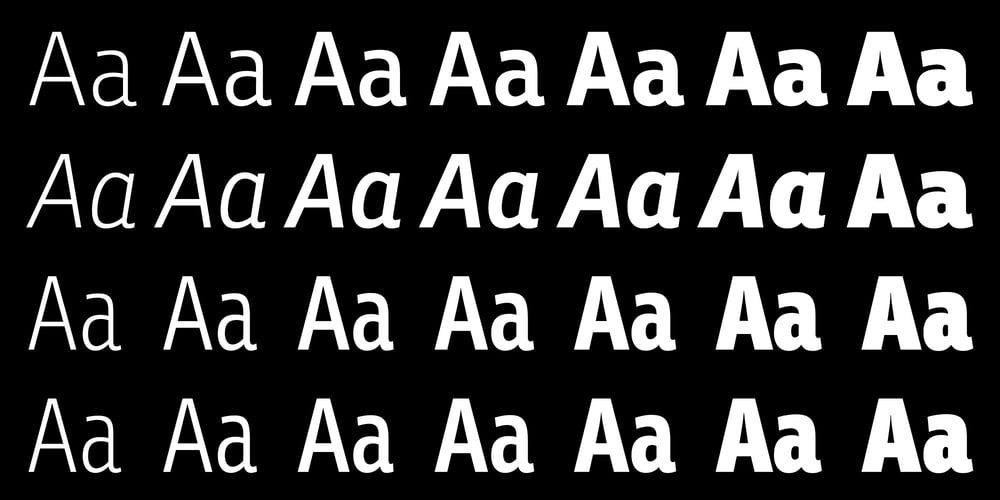
Ronnia Font Family was designed by Veronika Burian, José Scaglione and published by TypeTogether. Ronnia contains 14 styles and family package options. One of the most remarkable characteristic of this humanistic sans serif is its versatility. Ronnia’s personality performs admirably in headlines, but is diffident enough for continuous text and small text alike. The heavier weights deliver very cohesive shapes, and they have been successfully used for branding and newspaper headlines. Its ten styles grant the designer a broad range of coherent color and texture variations in text blocks, necessary tools to solve complex information and editorial design problems. Ronnia has been mainly engineered for newspaper and magazine applications manifested in its properties: economic in use, highly legible, and approaching the reader with some friendliness and charm. Ronnia features about 800 characters per weight, including small caps, fractions, old style and lining numbers, scientific superior/inferior figures, and a set of symbols and arrows. It supports over 40 languages that use the Latin extended alphabet. Ronnia Basic is a reduced version of Ronnia. It is still an OT-font but without any particular features except of a set of ligatures, class-kerning and language support including CE and Baltic.